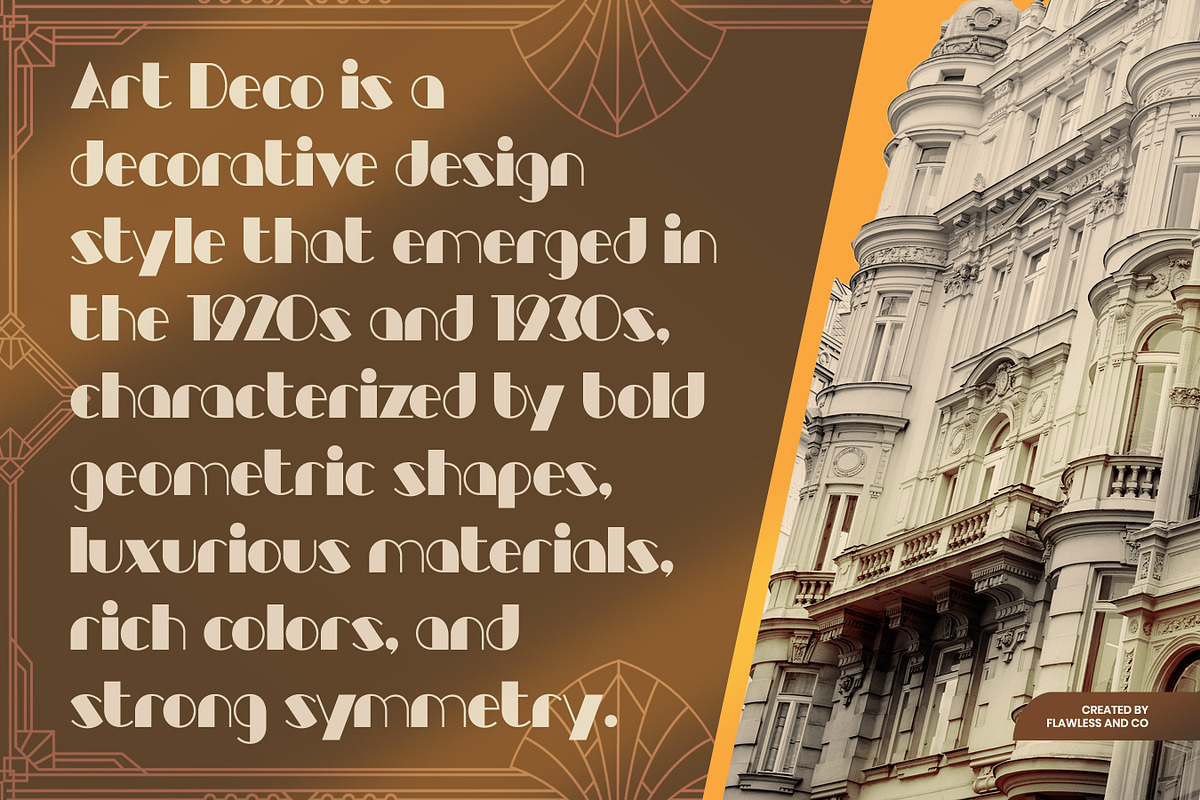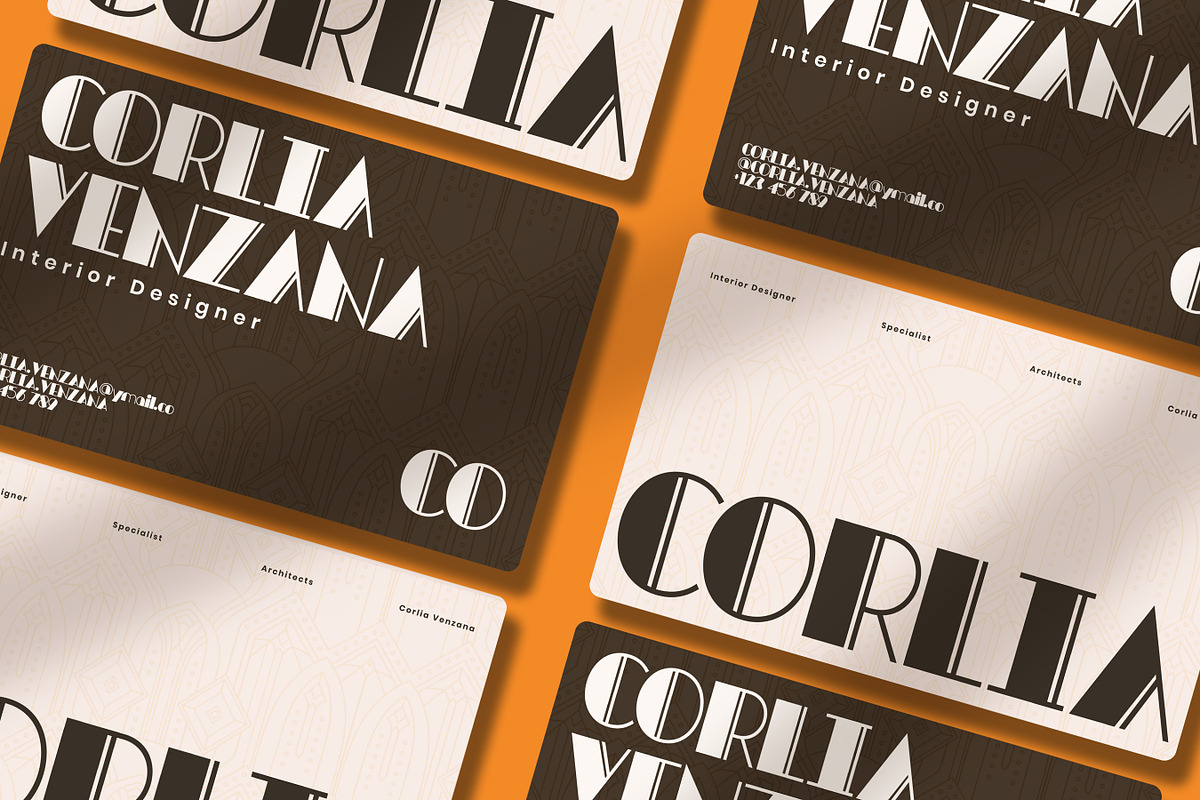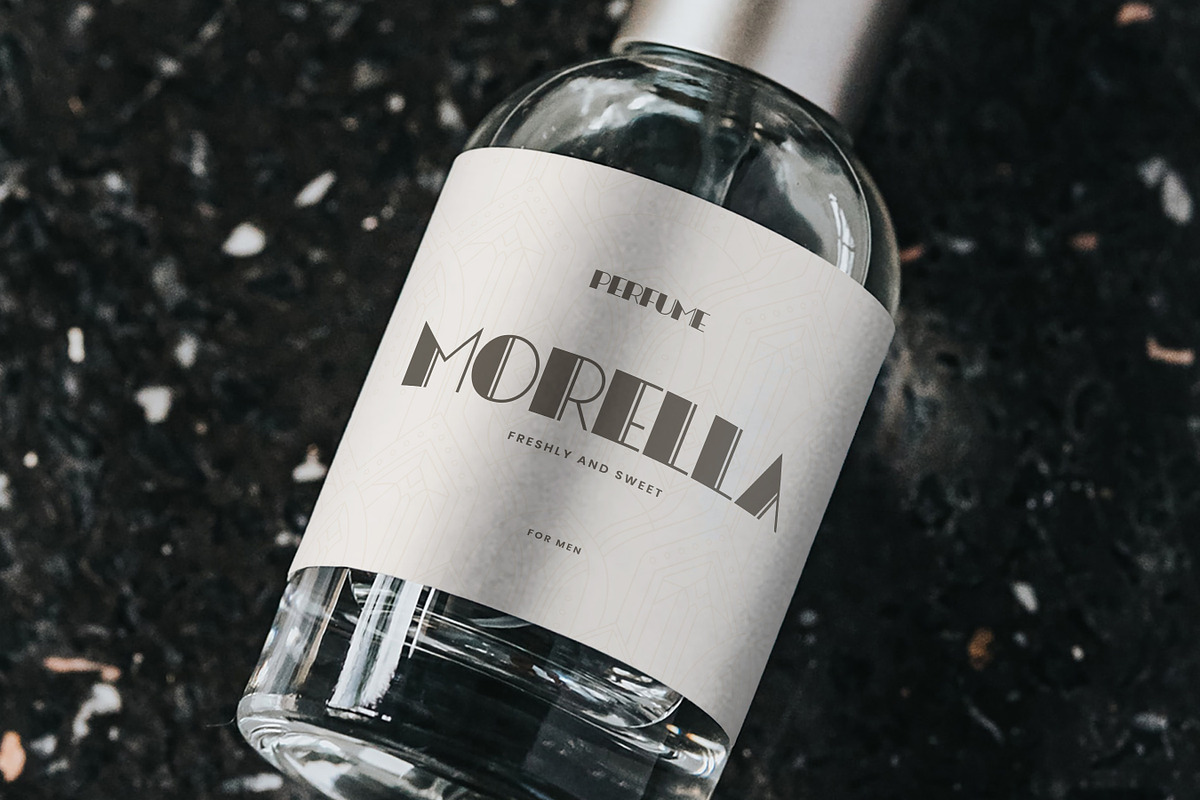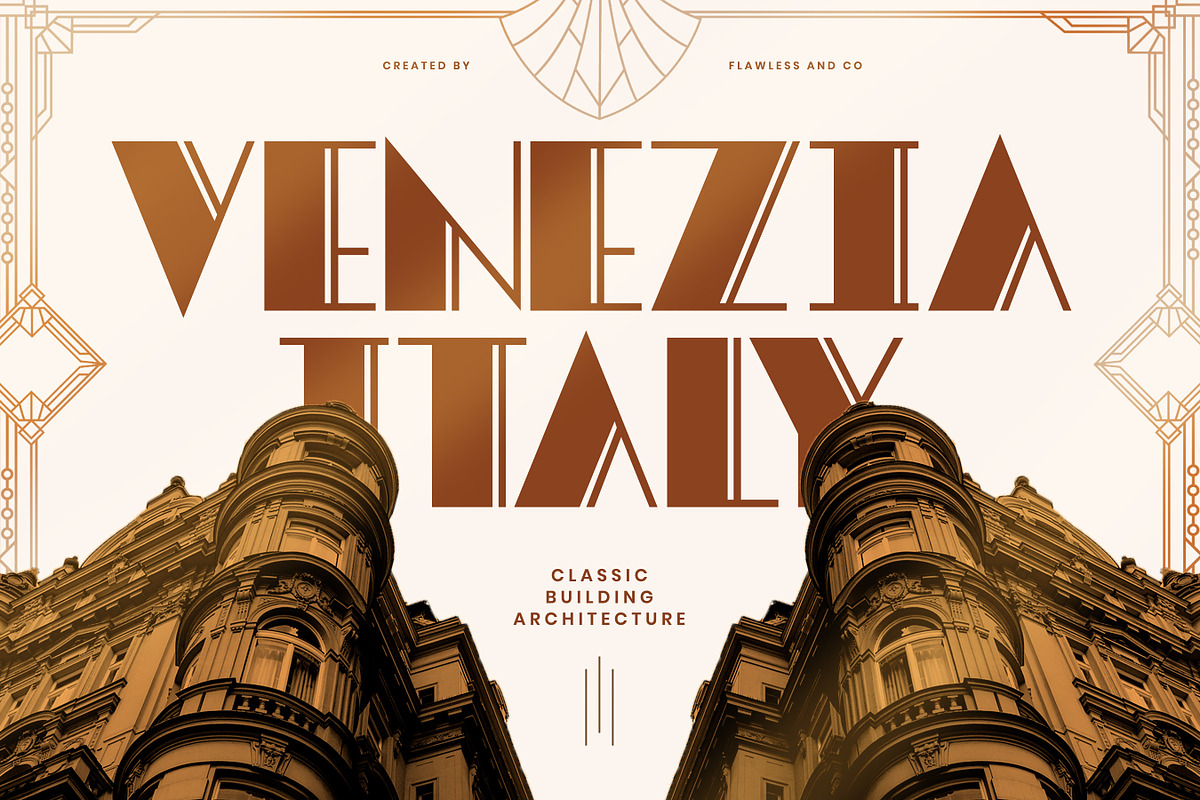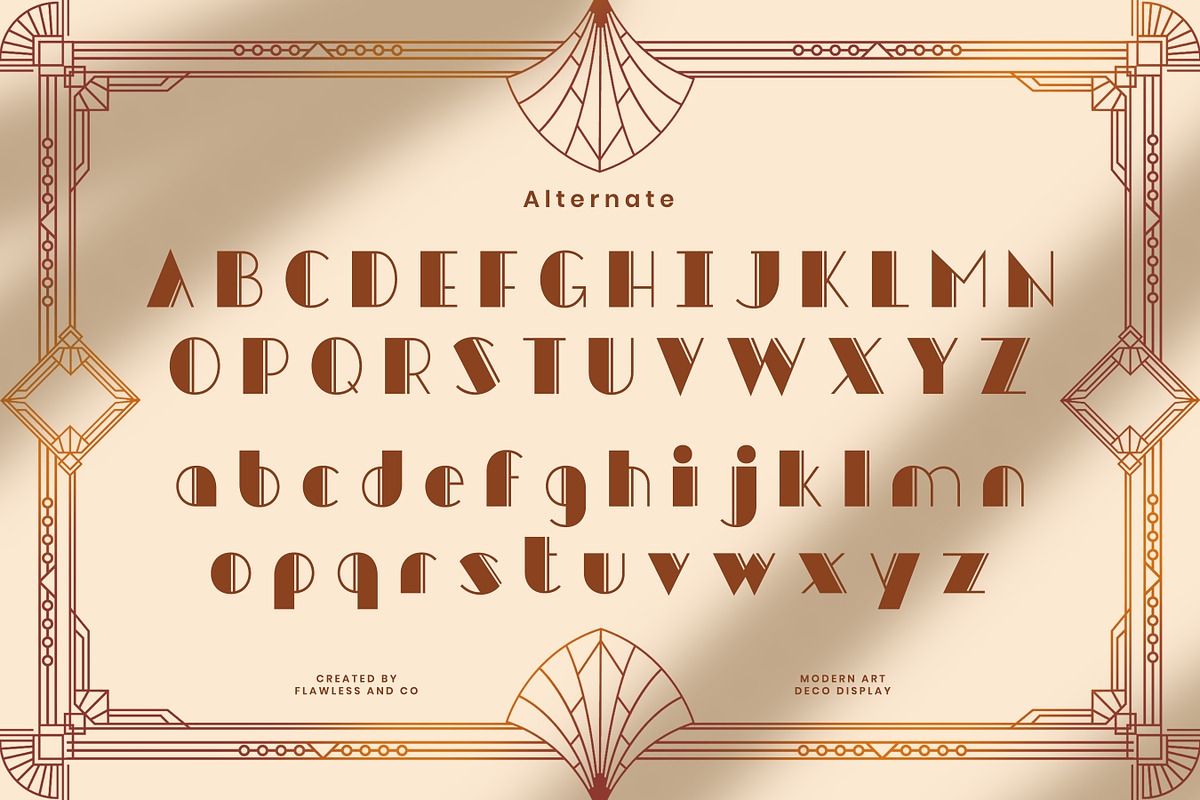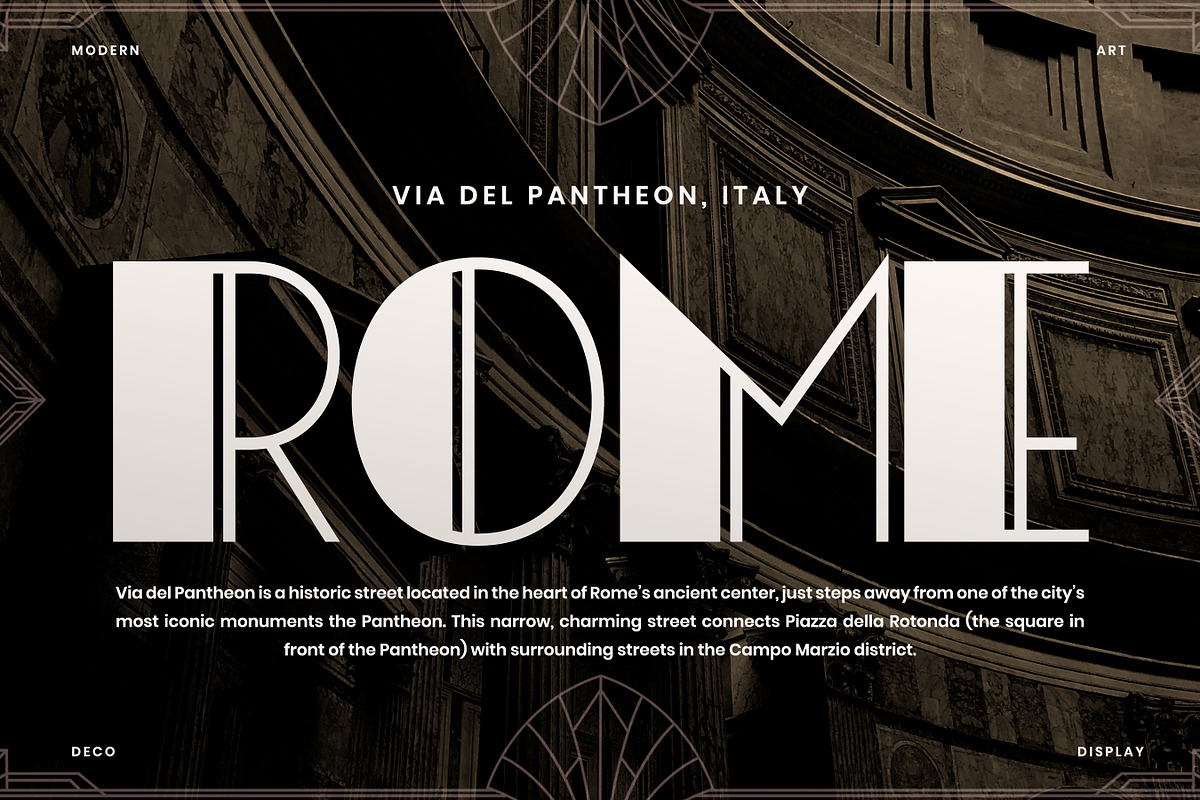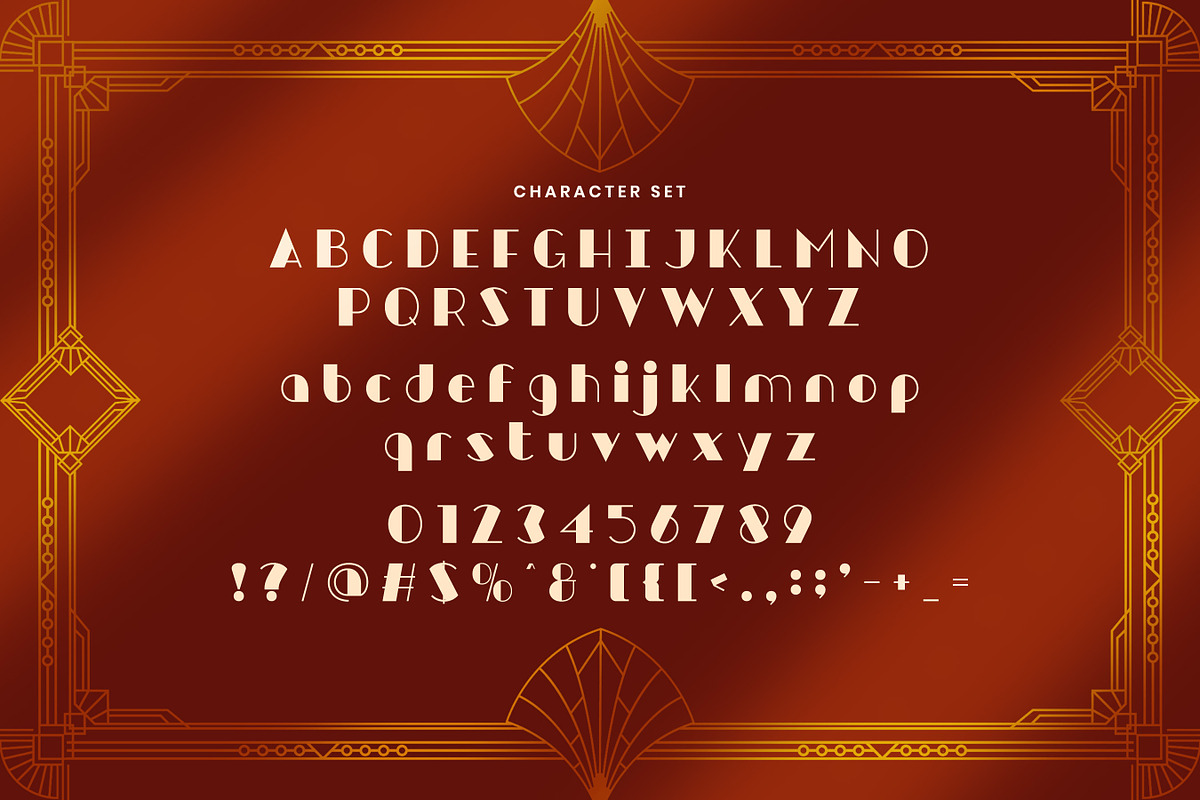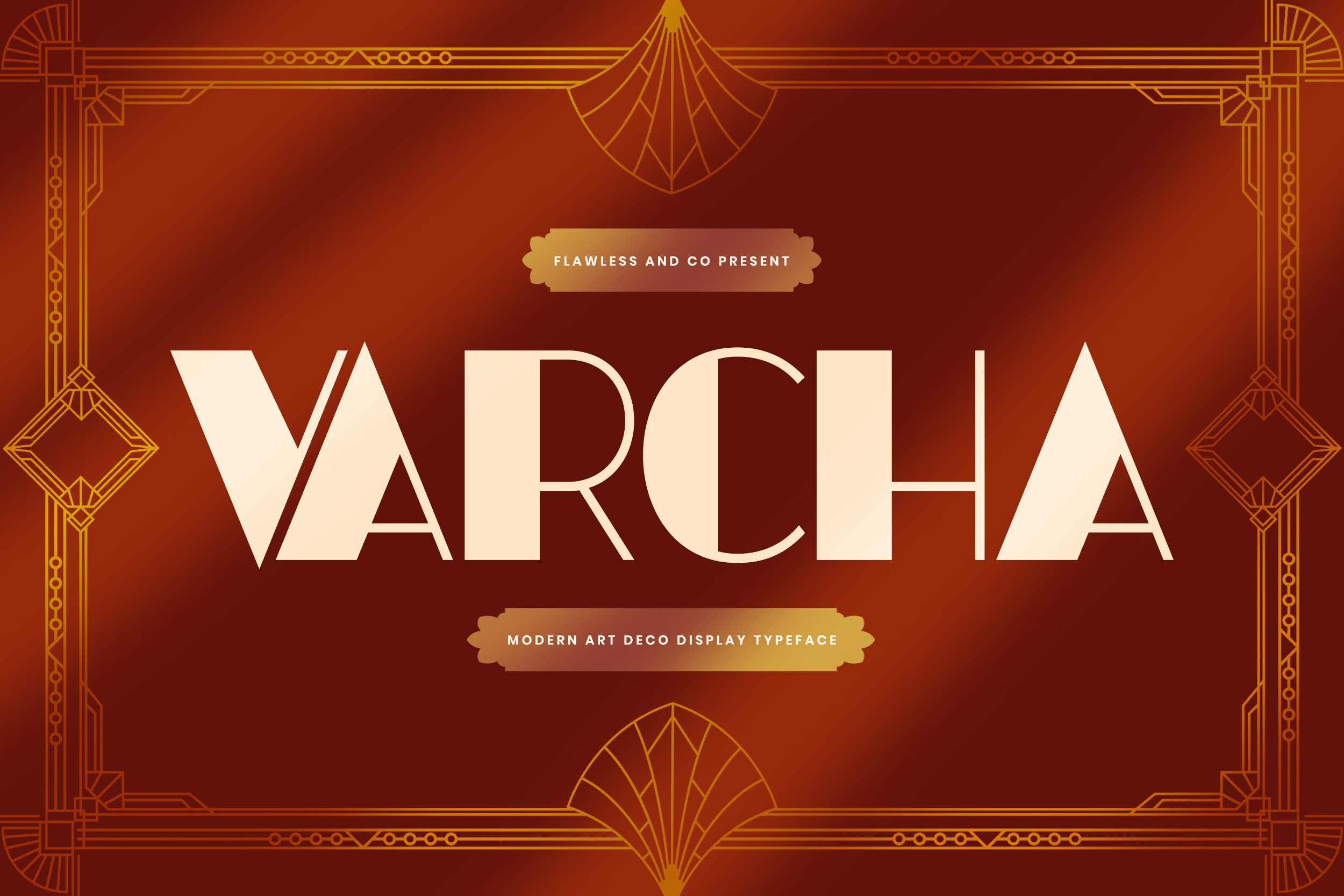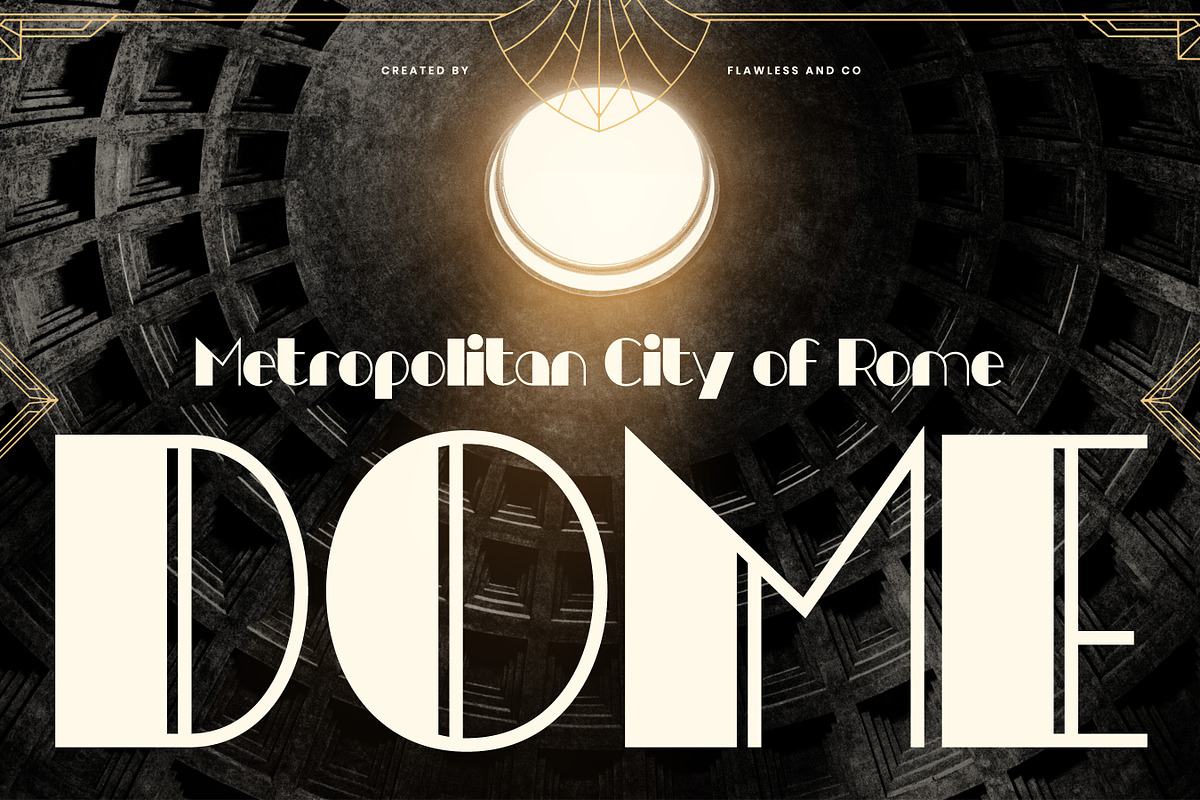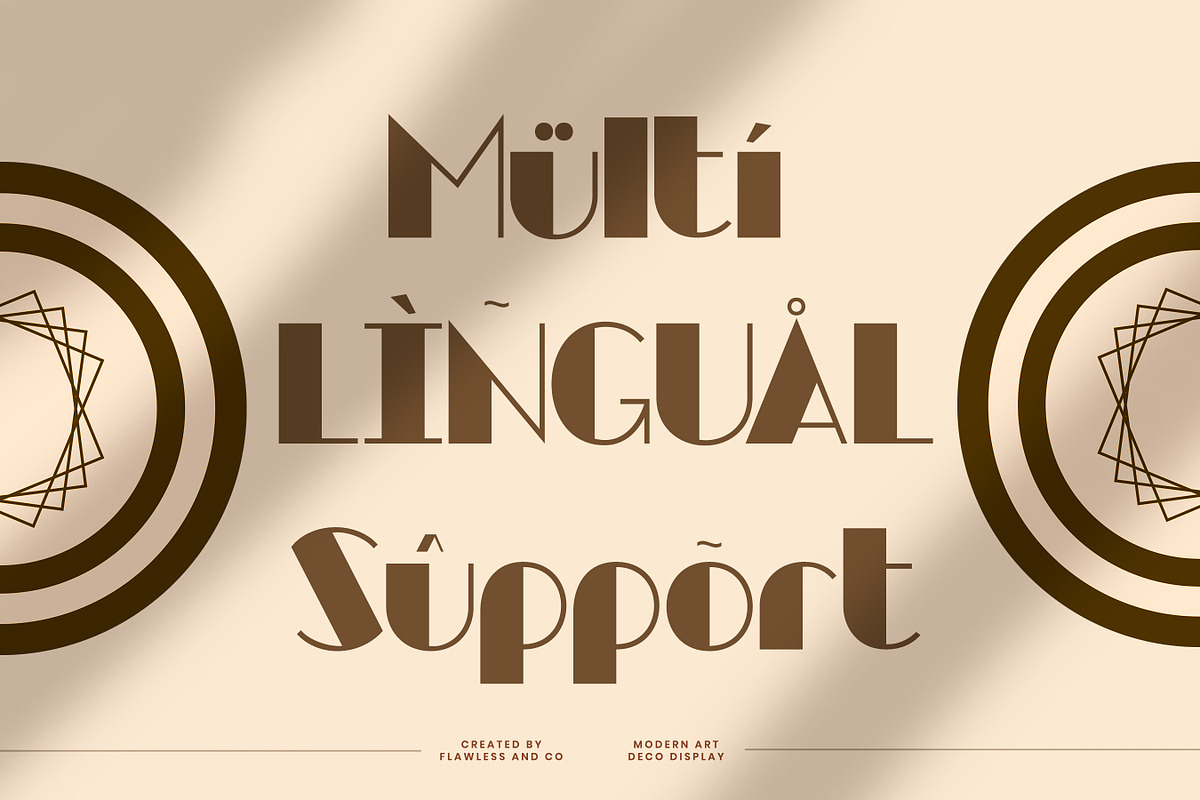
Varcha - Modern Display Font
Varcha is a modern display font inspired by the timeless beauty of Art Deco design. Bold geometric shapes, sharp edges, and refined curves come together to create a typeface that looks luxurious, stylish, and impeccably sophisticated. Every letter carries a sense of grandeur and exclusivity — making Varcha the perfect statement for high-end branding.
Who Should Use Varcha?
Varcha is the perfect choice for designers, brands, and creatives who aim to bring a luxurious and timeless visual identity into their work. Whether you’re crafting a logo for a premium brand or designing high-end editorial layouts, Varcha elevates every design with sophistication and artistic flair.
A Must-Have Font for Brand and Logo Creators and Designers
Varcha is an essential font for designers who want their branding and logo work to feel luxurious, iconic, and unforgettable. Its bold Art Deco curves and refined geometric style create a visual statement that instantly elevates any design. Whether used for high-end branding, premium packaging, or fashion-focused campaigns, Varcha delivers the kind of typographic presence that stands out and leaves a lasting impression.
Why Choose Varcha for Brand and Logo Projects?
Varcha is crafted to bring instant luxury and sophistication to every branding and logo design. Whether applied to high-end fashion, beauty products, hospitality, or luxury events, Varcha delivers a polished and iconic look that elevates brand presence across digital and print media.
Suitable For
Varcha is the perfect choice for creative professionals who want to achieve a glamorous and timeless visual identity. Ideal for a wide range of design needs, including:
- Luxury brand logos & monograms
- Fashion, beauty & boutique branding
- Hotel & premium hospitality identity
- Packaging & product labels
- Invitations & event promotions
- Magazine covers & editorial layouts
- Jewelry & cosmetics branding
- High-end website headers and hero titles
- Social media promotional graphics
- Posters, signage & billboard displays